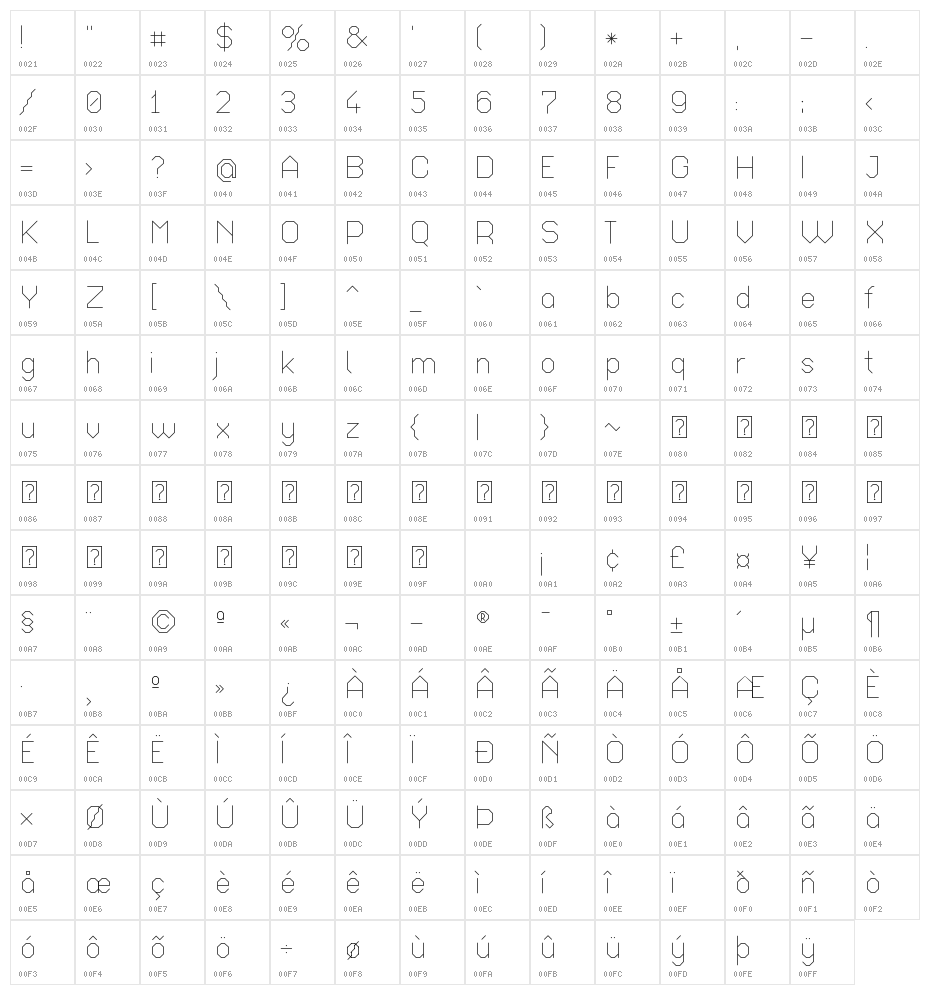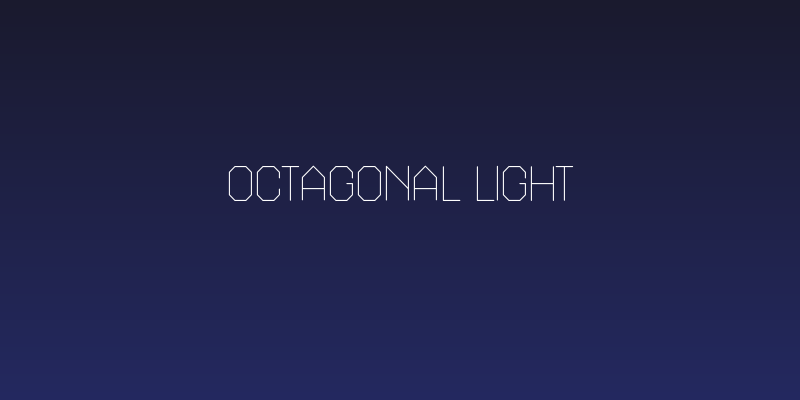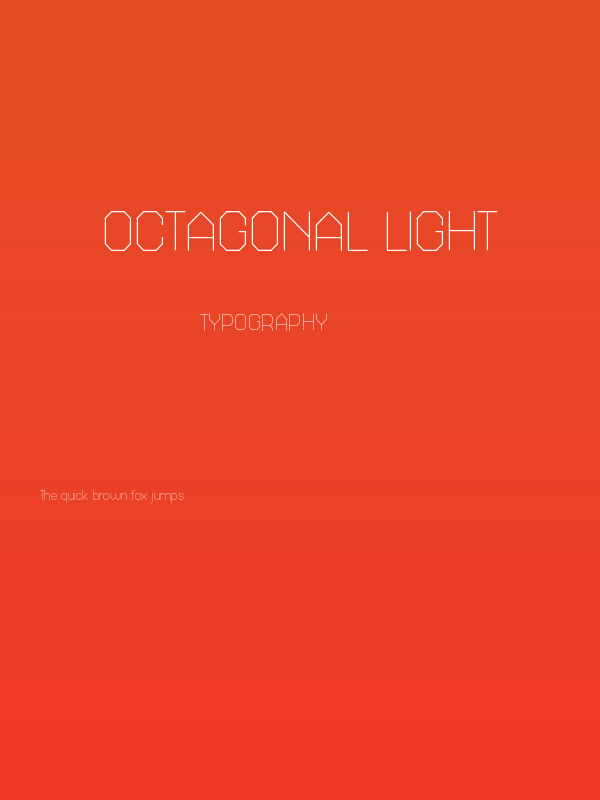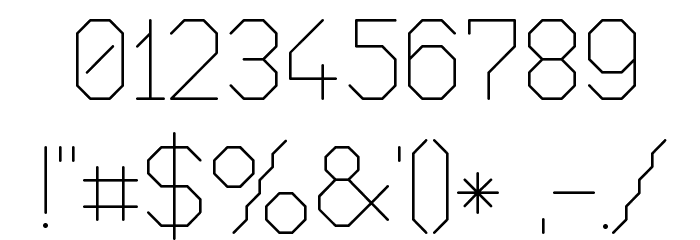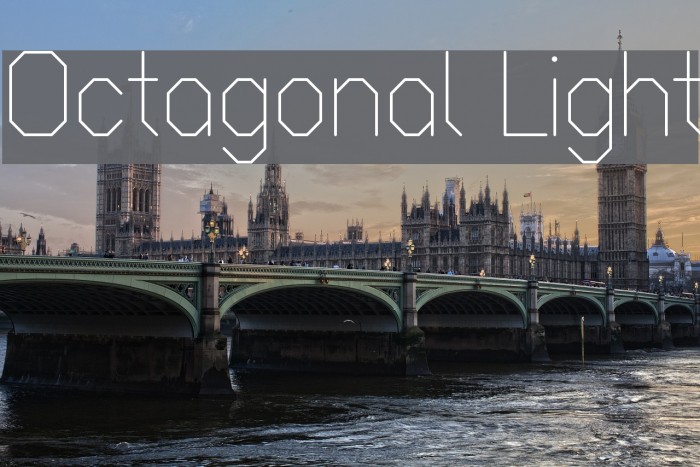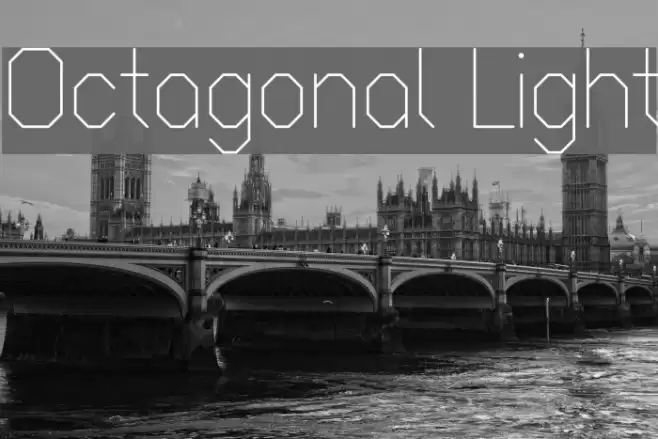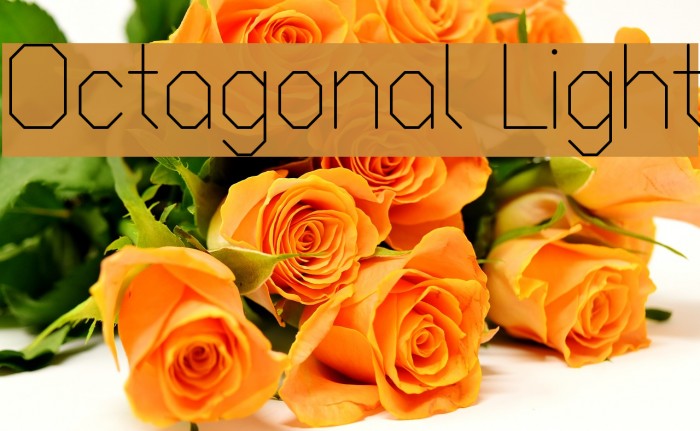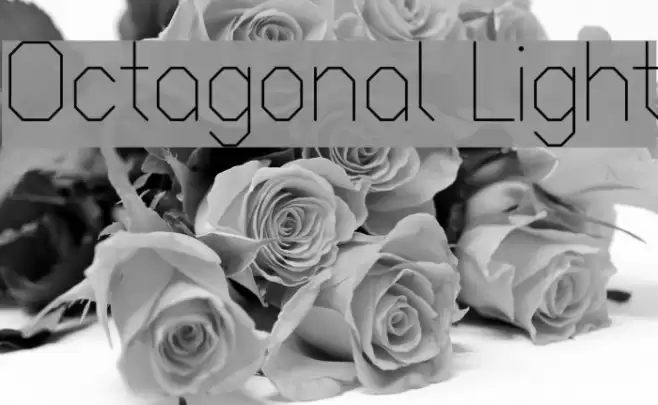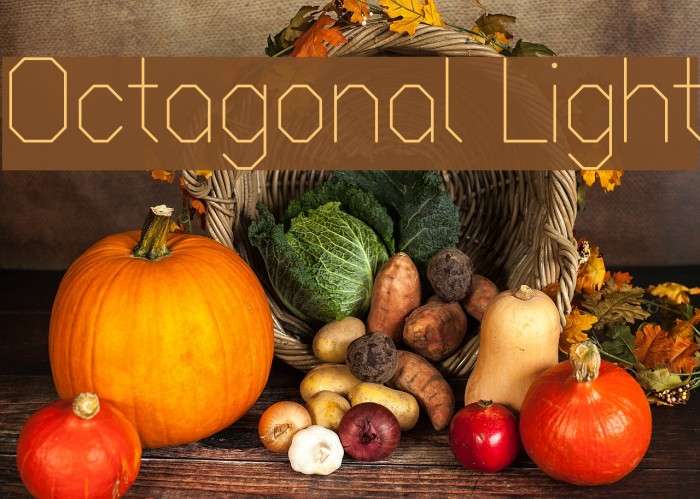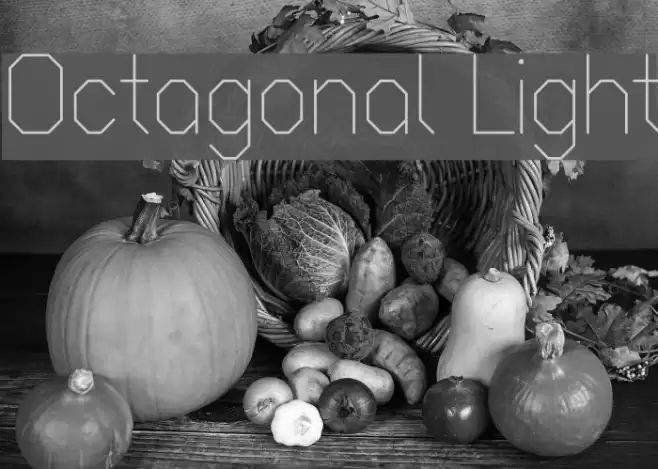
Octagonal Light Font
Octagonal Light Description
This font features a geometric, octagonal design that gives it a distinct and modern appearance. The characters are constructed with straight lines and sharp angles, creating a futuristic and technical feel. The uppercase and lowercase letters maintain a consistent style, with a uniform stroke width that emphasizes clarity and precision. The numerals and special characters follow the same design principles, ensuring a cohesive look across all glyphs. This font's unique structure makes it stand out, while its simplicity ensures readability.
| Proposed Projects | Ideal for technology branding, modern posters, video game interfaces, and futuristic designs. |